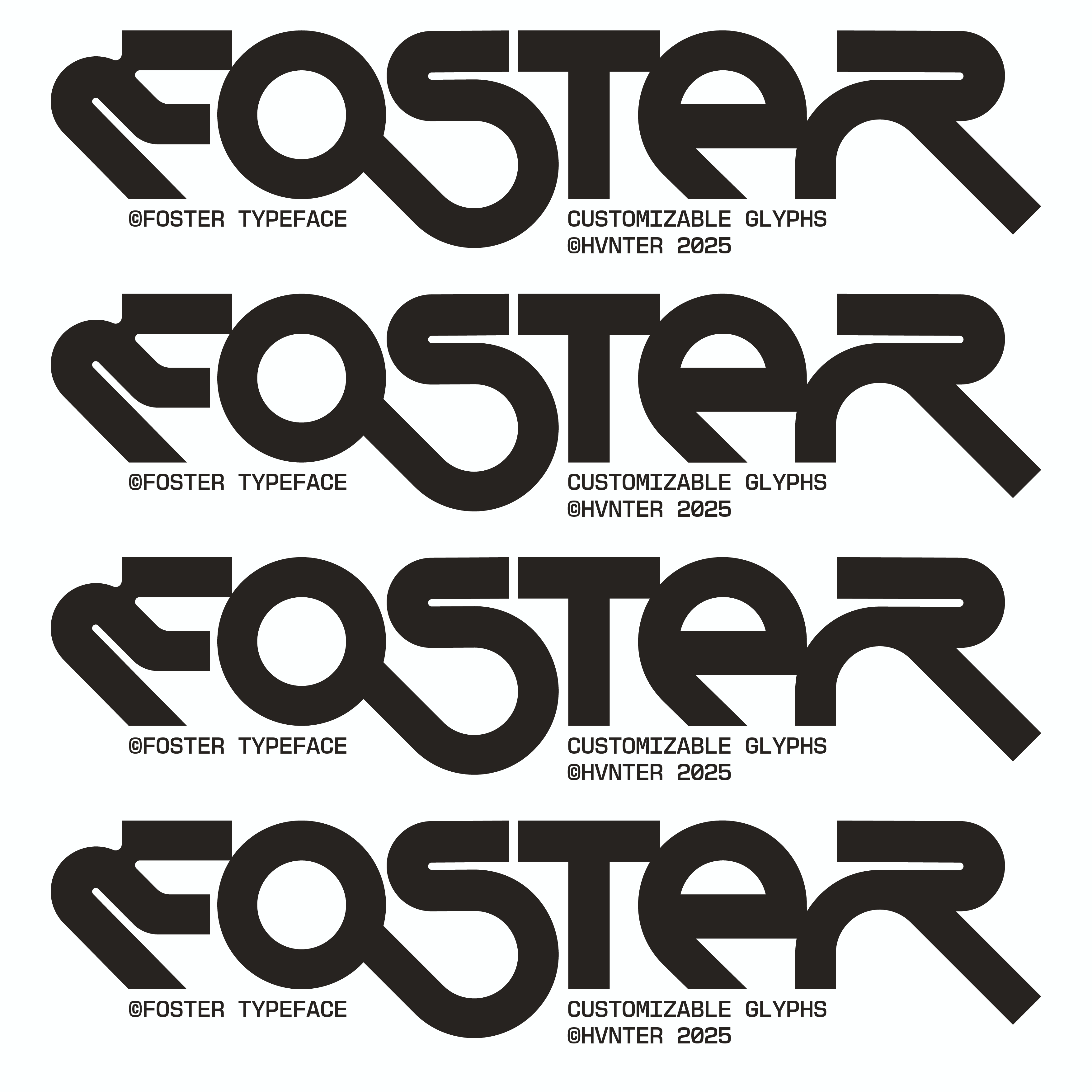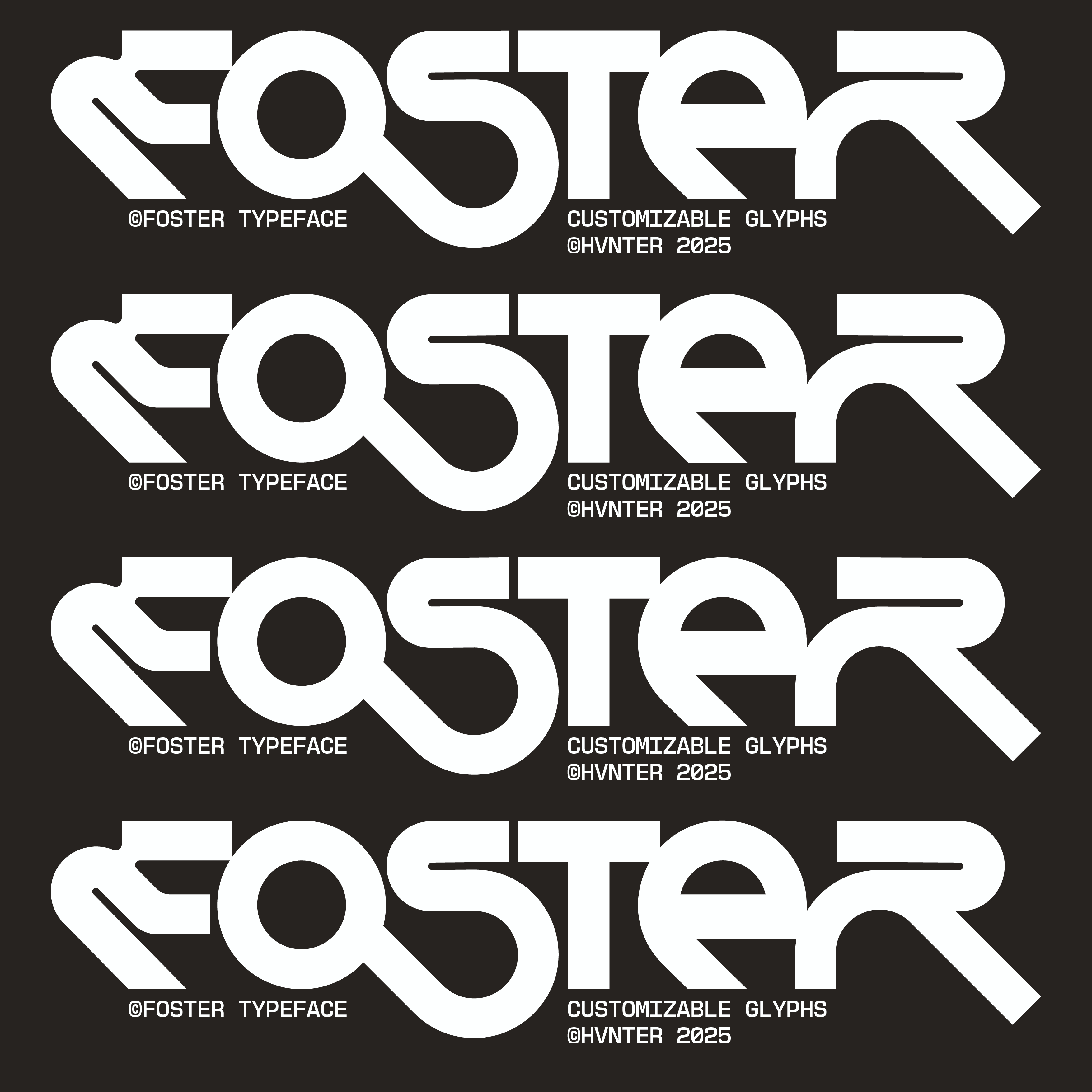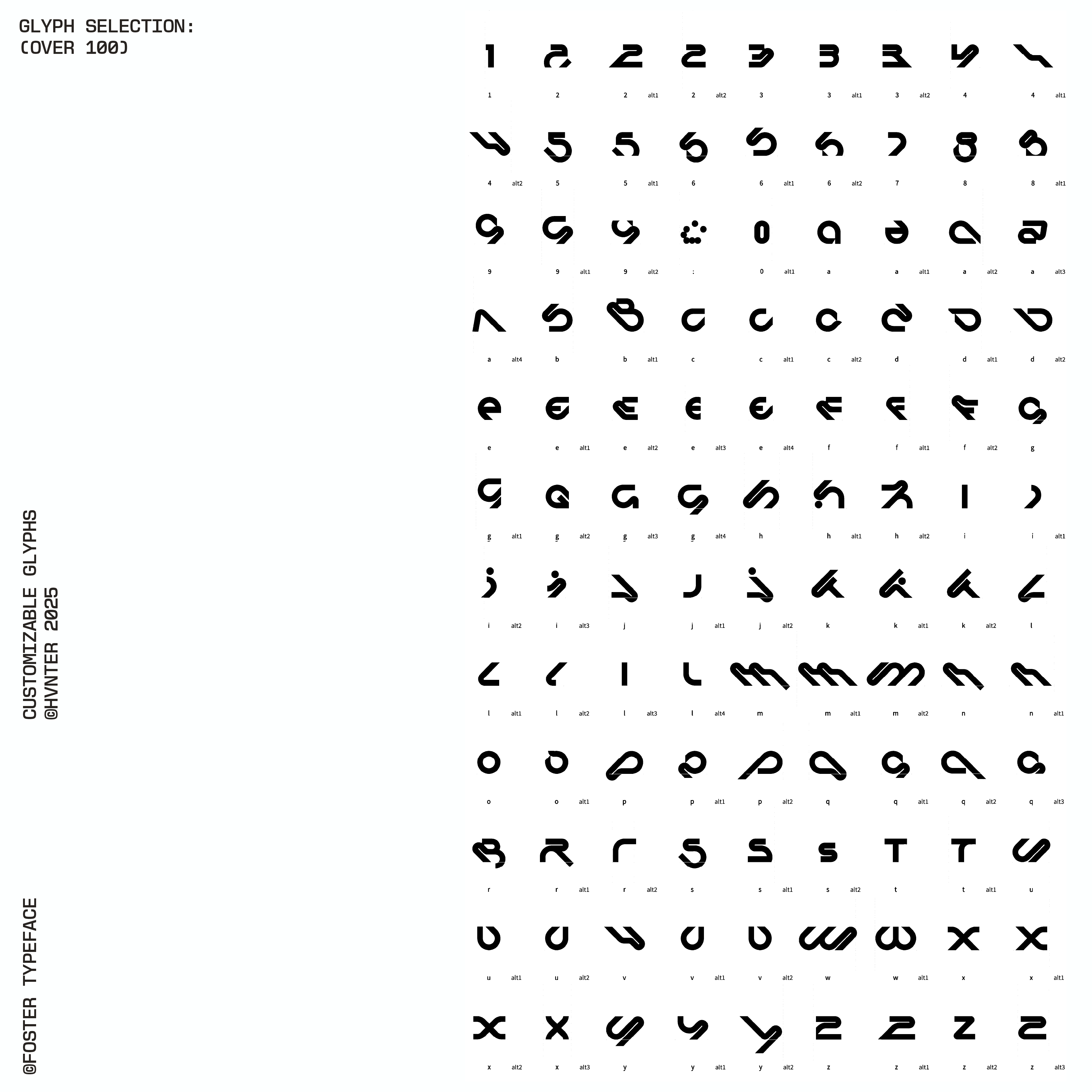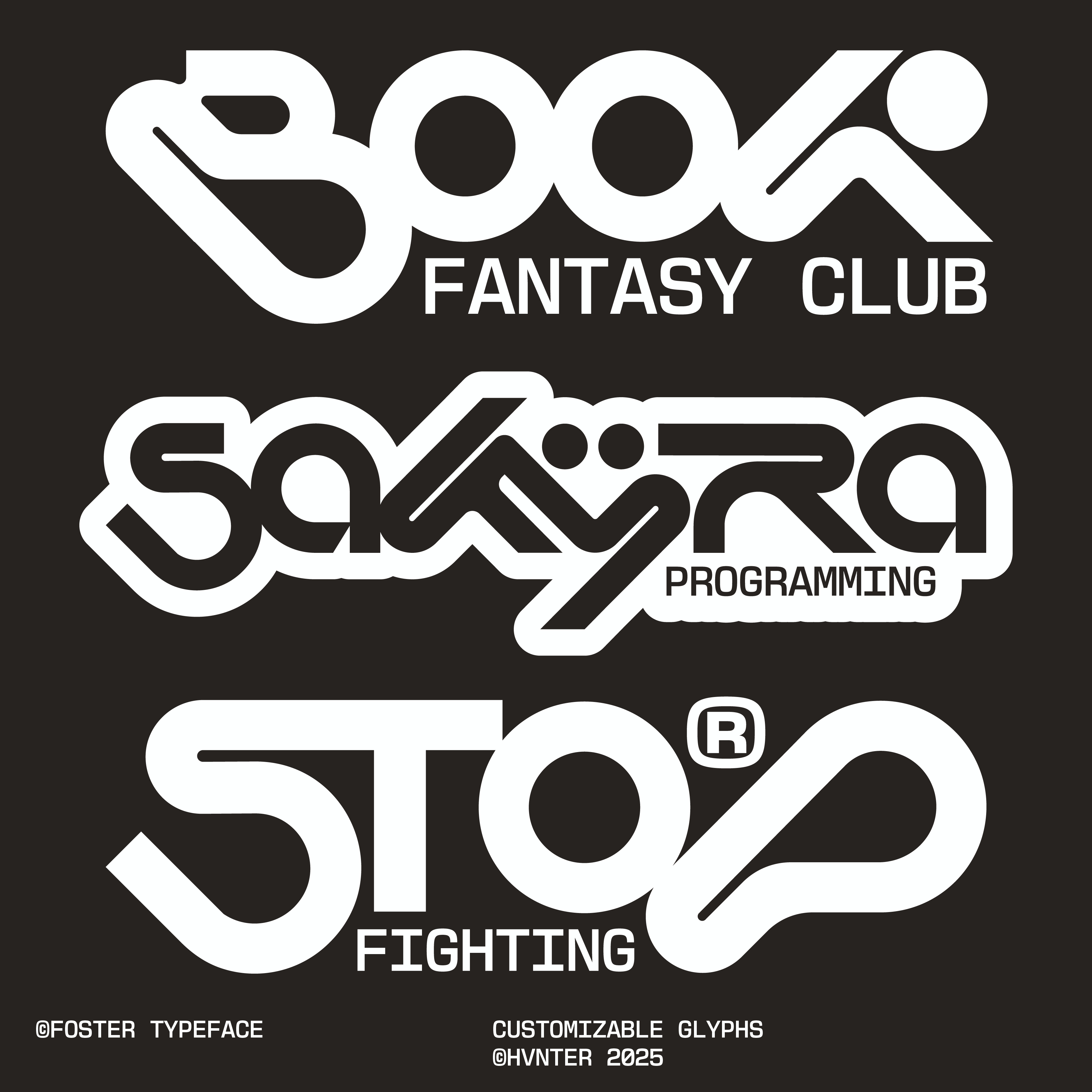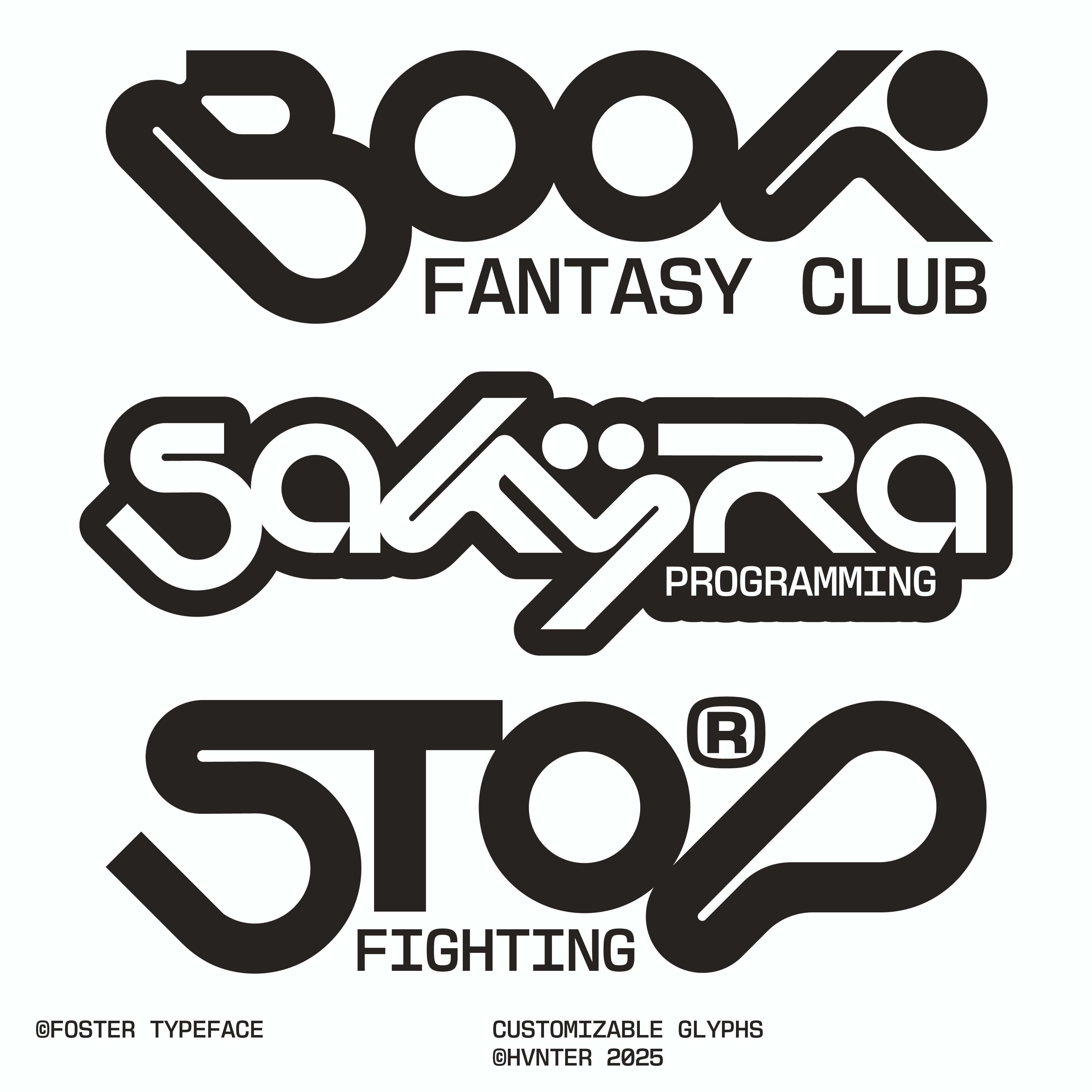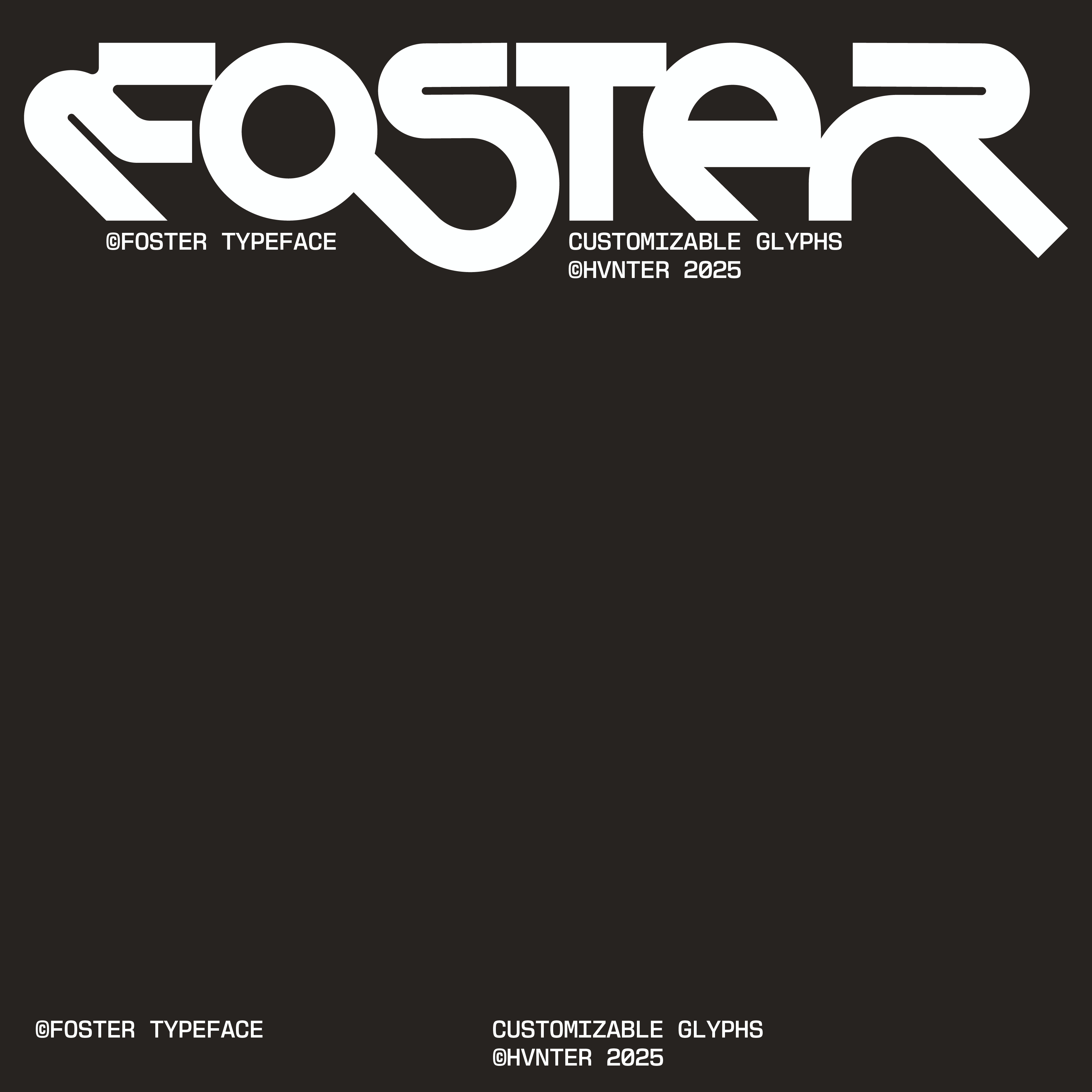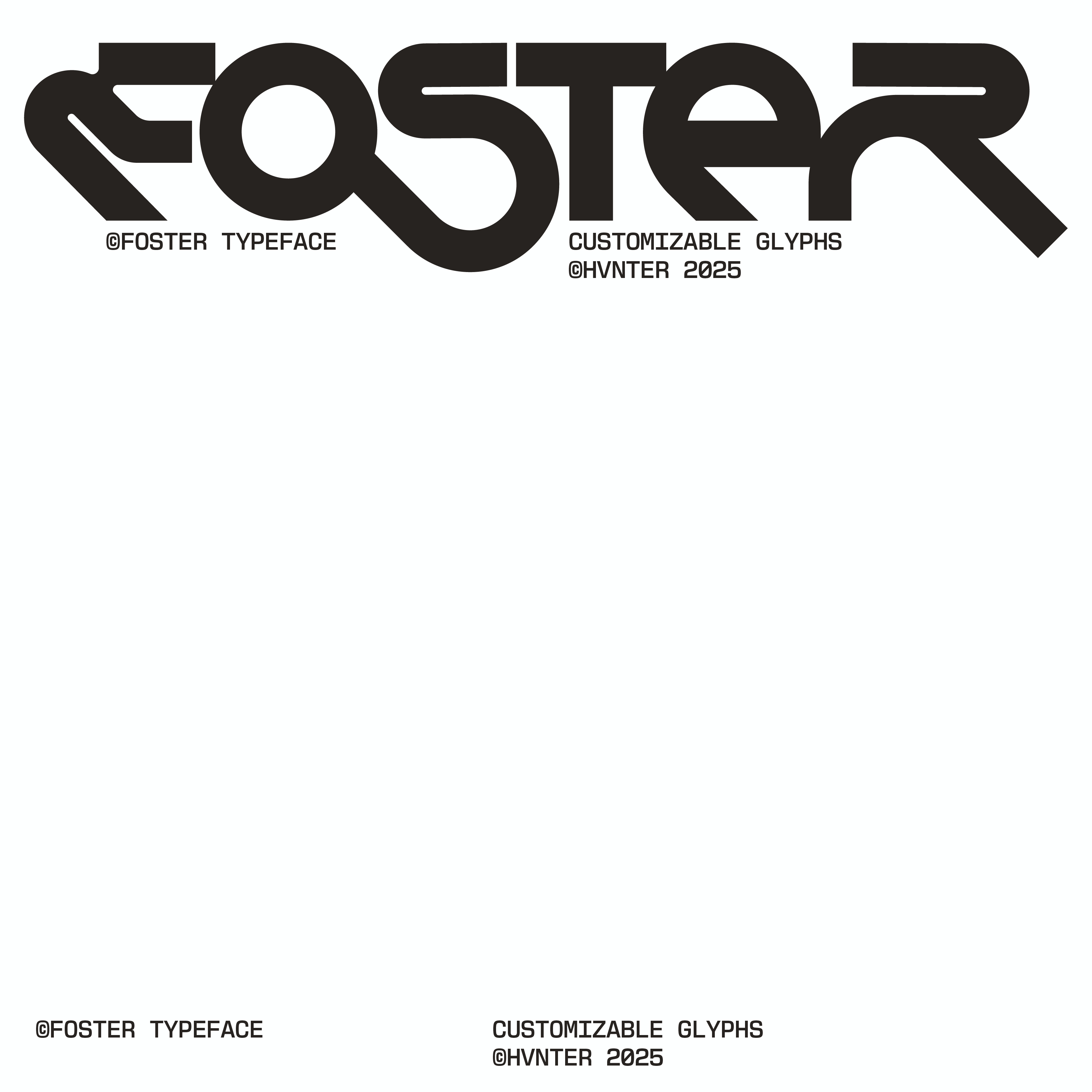
Foster Typeface
Highly customisable typeface with lots of letter variations (over 100 glyphs). Designed to help create unique custom type!
Includes A-Z, 0-9 + basic symbols